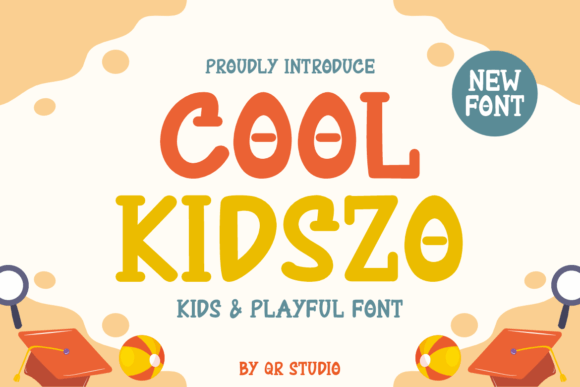
Introduction to Cool Kidszo Font
Cool Kidszo is an incredibly cool and unique display font.
It has a modern yet whimsical style and it will undoubtedly immerse your designs into a magical world .
Cool Kidszo Font offers exceptional quality and versatility, making it a valuable addition to your design toolkit. Whether you’re creating for personal projects or commercial use, Cool Kidszo Font delivers professional results.